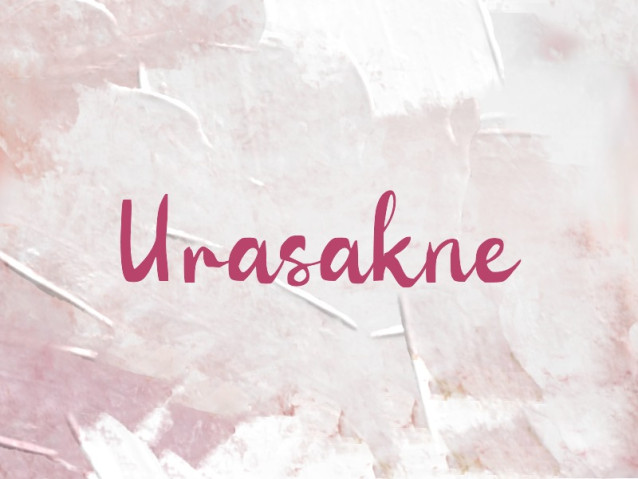
Urasakne Font
Urasakne Font is a simple and friendly handwritten font. Its natural and unique style makes it incredibly fitting to a large pool of designs. The only limit is your imagination!